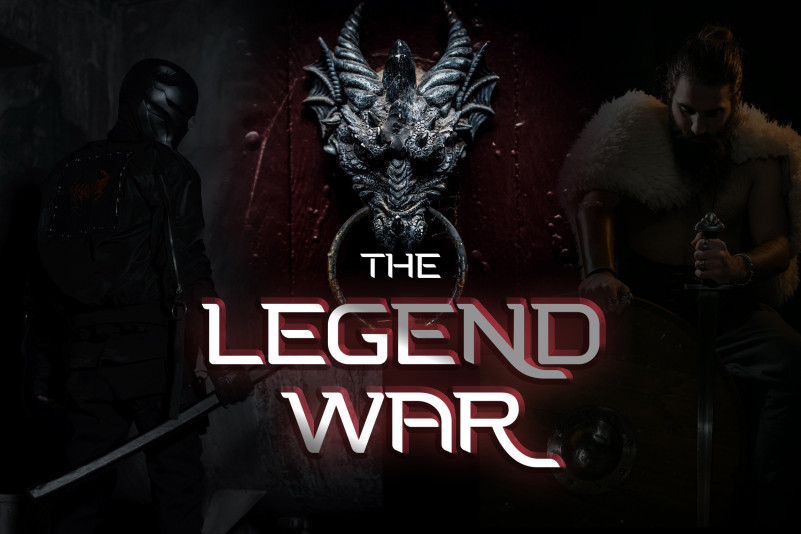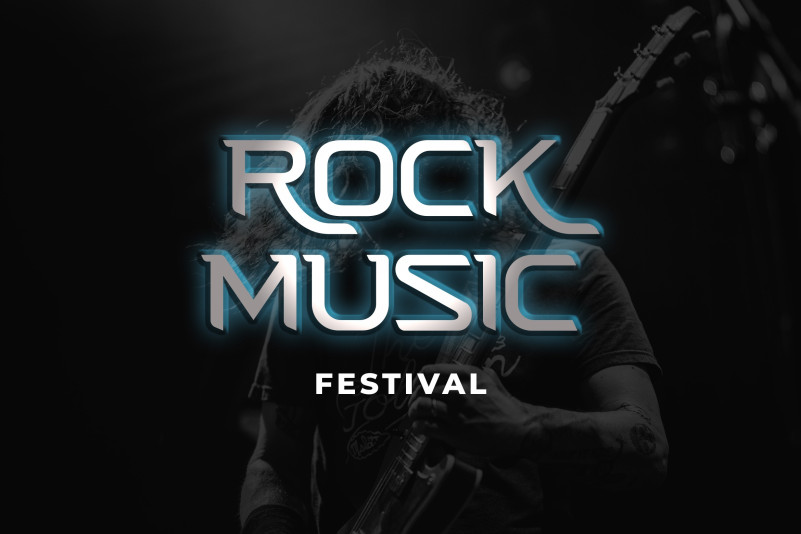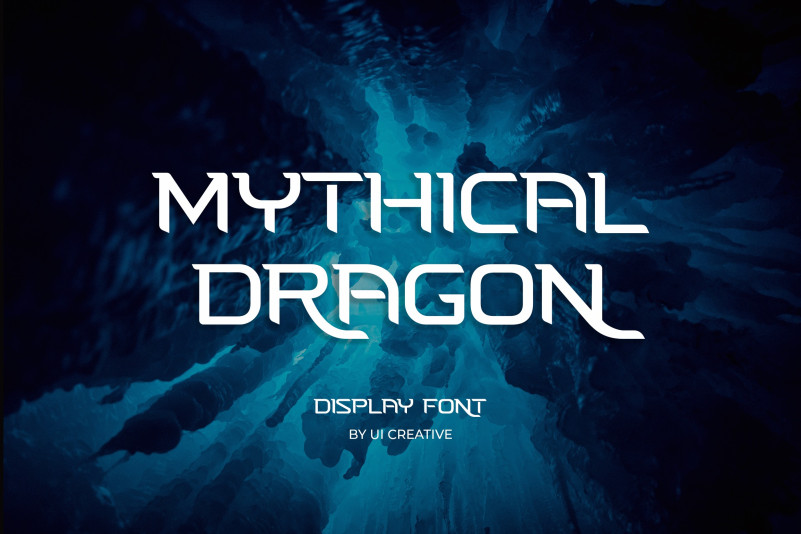
Mythical Dragon Font
Mythical Dragon Font – Display Serif font that feels beautiful classy, elegant, and modern. This font is perfectly suited for a wide variety of projects, such as signature, stationery, logo, wedding, typography quotes, magazine or book cover, website header, branding, packaging design, and more. Also for fashion-related branding or editorial design and displays both masculine and feminine qualities.